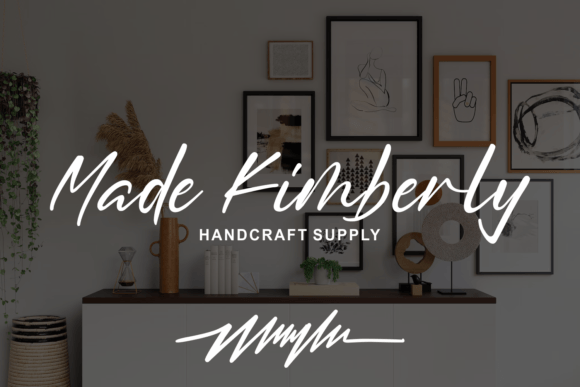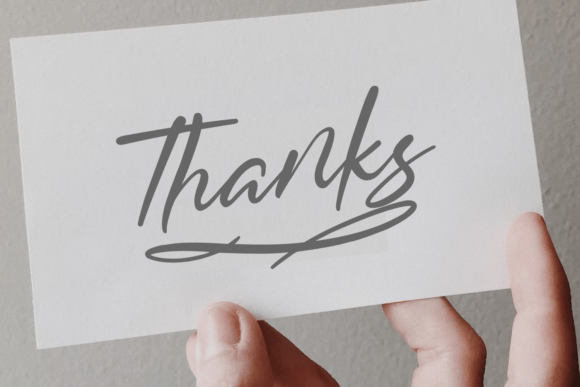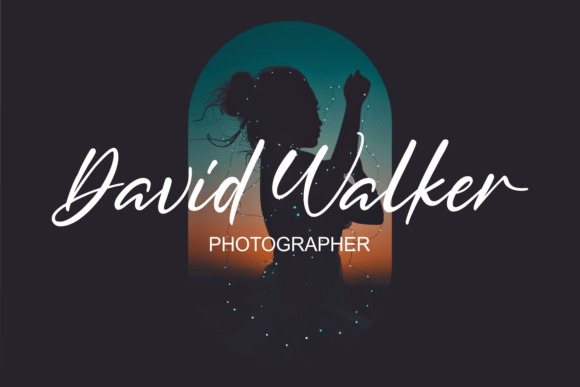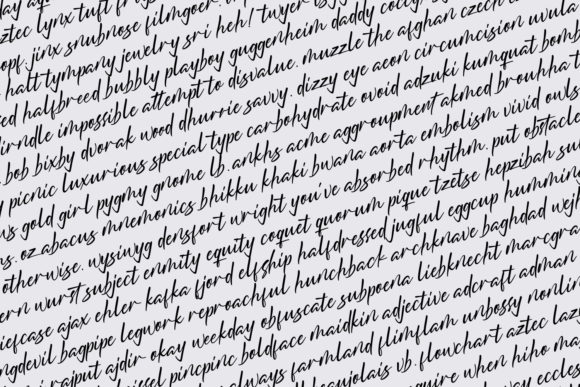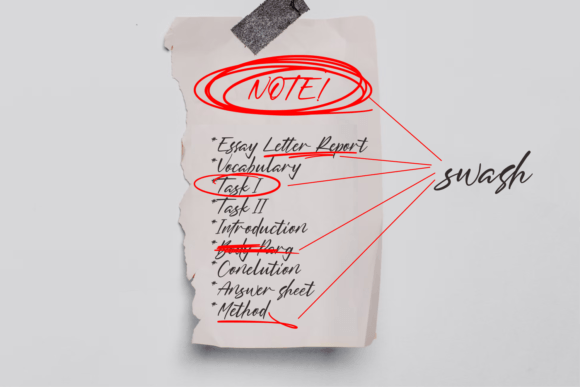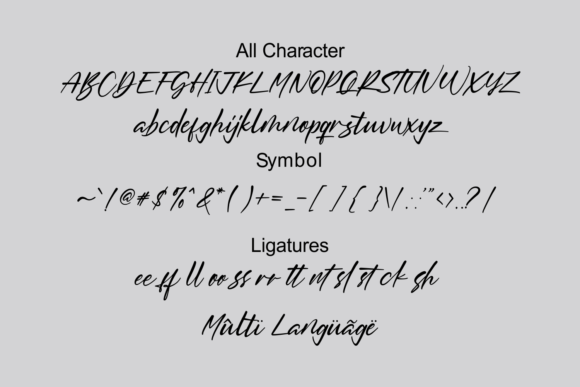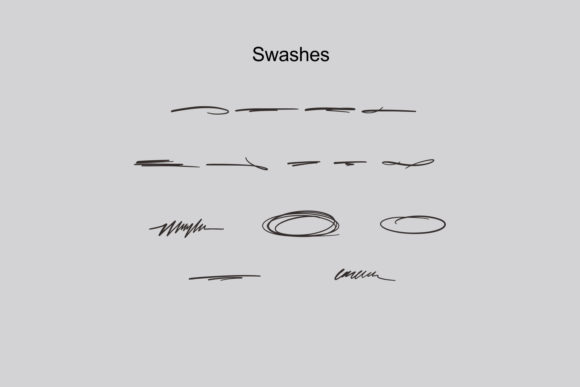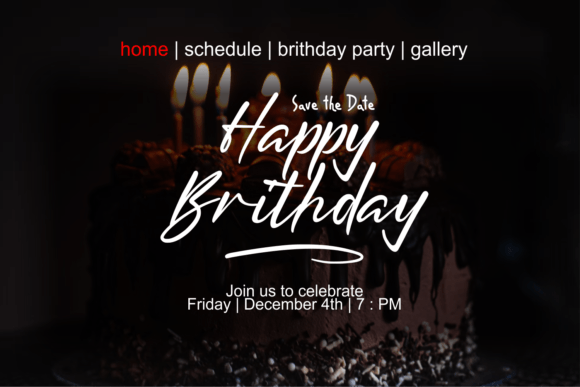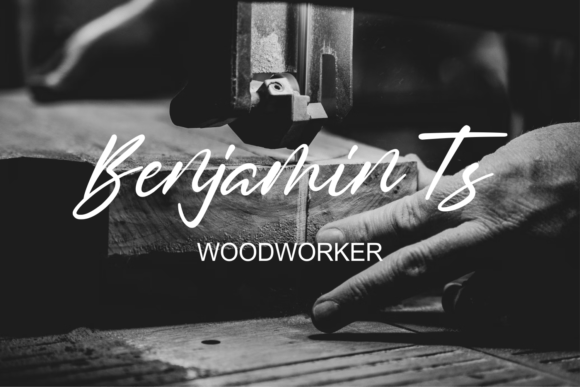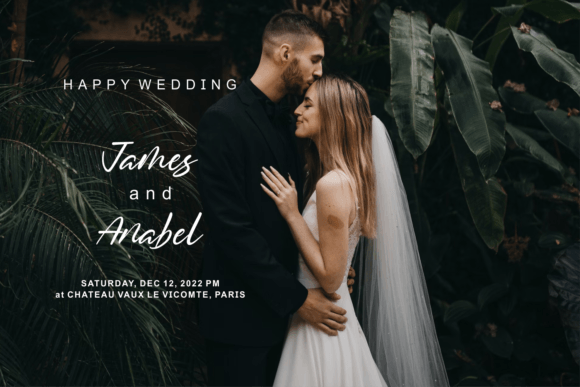
About Black Forest Font
“Black Forest” is a cool and modern handwritten script font that brings a contemporary and stylish touch to your design projects. This versatile font is perfect for a wide range of applications, making it an excellent choice for wedding invitations, thank you cards, quotes, greeting cards, logos, business cards, and any other design that benefits from a handwritten touch.
The appeal of “Black Forest” lies in its ability to convey a sense of modernity and elegance with its handwritten style. Each character is thoughtfully designed to exude a contemporary flair, making it ideal for projects where you want to create a trendy and eye-catching impression. Whether you’re working on digital or print materials, “Black Forest” offers a versatile and stylish script that adds a touch of sophistication to your content.
For personal stationery, branding, promotional materials, and a wide range of design applications, “Black Forest” provides the creative freedom to make your projects stand out. Its modern handwritten style can enhance the visual appeal of your designs and create a memorable impact.
The font’s PUA encoding means that you can easily access its extensive range of glyphs and ligatures, providing you with enhanced creative possibilities. This feature empowers you to create unique and personalized designs with ease, adding an extra layer of style to your work.
In summary, “Black Forest” is a valuable font that brings modernity and elegance to your creative work. Its contemporary handwritten script style and versatility make it suitable for a variety of applications, and its ability to convey trendiness and sophistication sets it apart. With “Black Forest” in your font collection, your design projects will exude a sense of modern style and elegance that leaves a lasting impression.